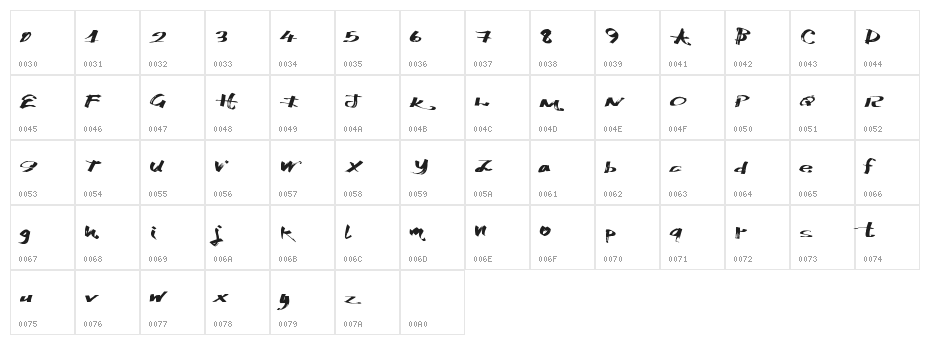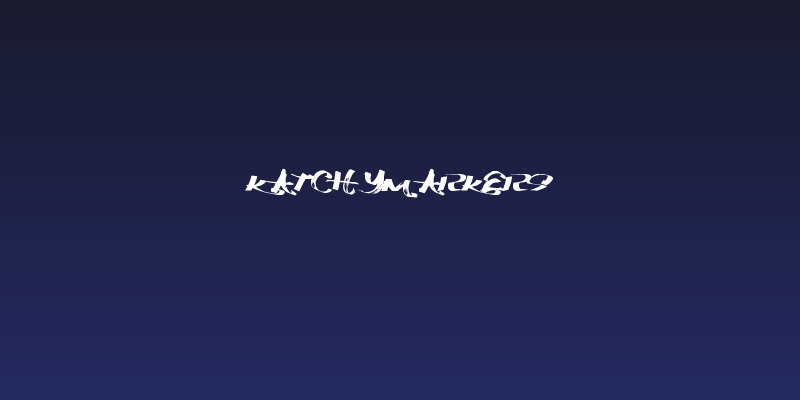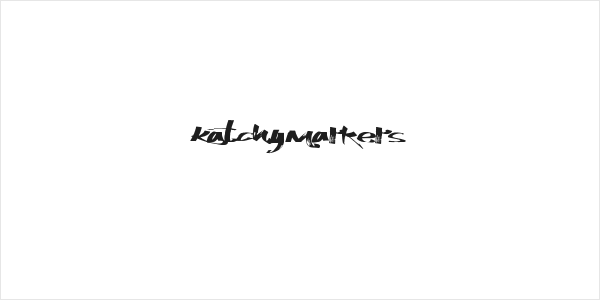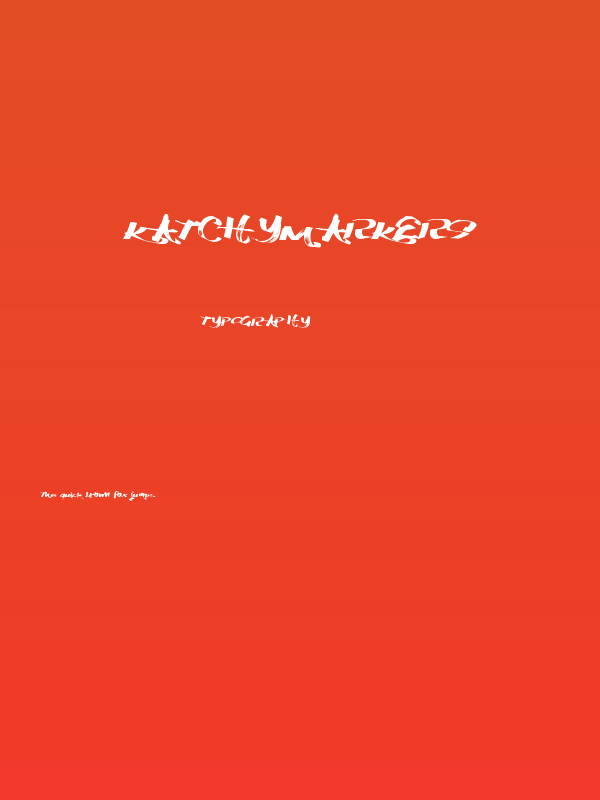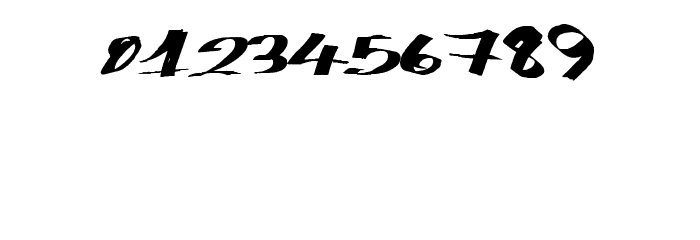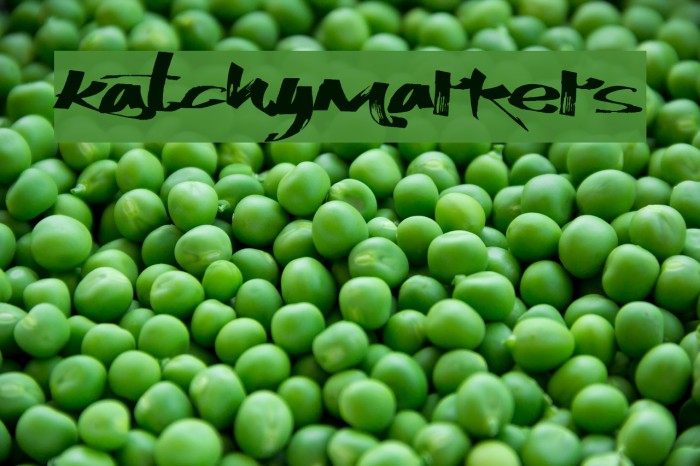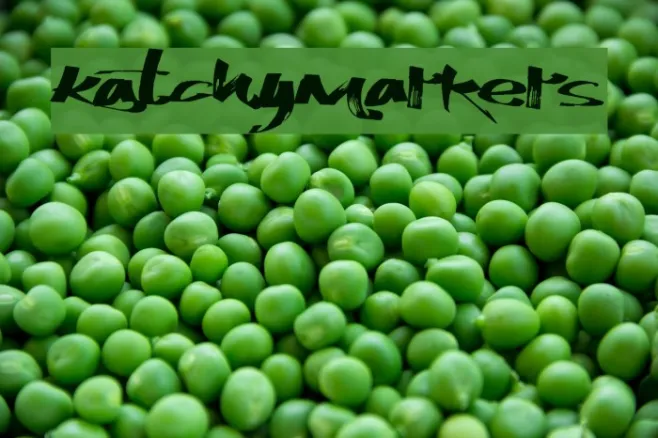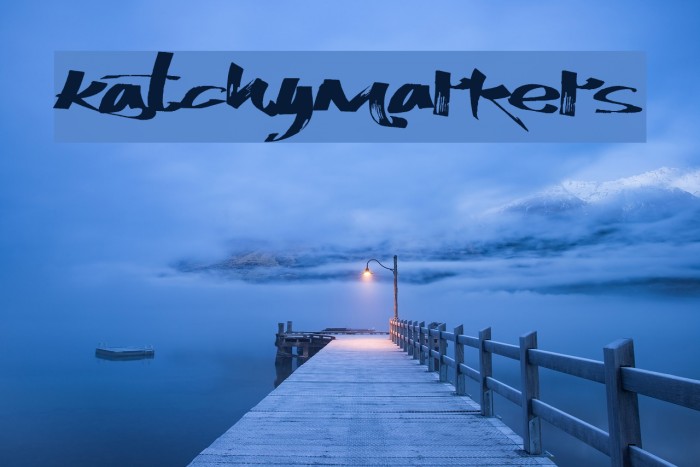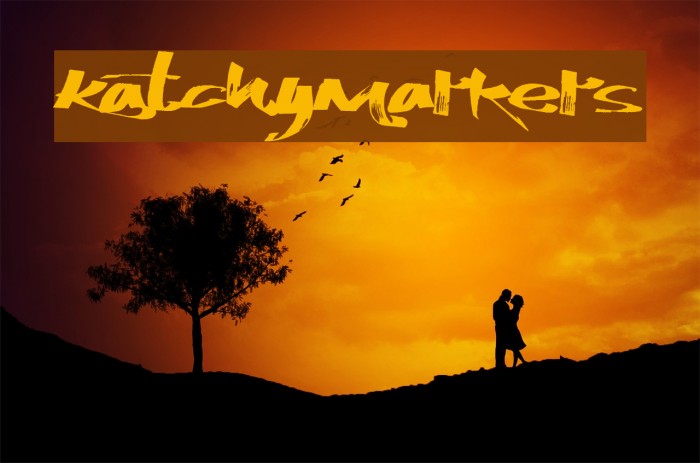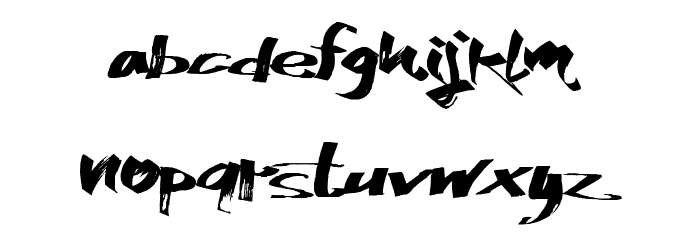
KatchyMarkers Font
KatchyMarkers Description
This font features a bold, expressive style with a brush-like appearance, characterized by its dynamic strokes and artistic flair. The letters have a hand-drawn quality, with varying thicknesses that create a sense of movement and energy. The uppercase letters are particularly striking, with dramatic flourishes and a slightly chaotic feel, while the lowercase letters maintain a more consistent flow. The numbers and special characters are equally bold, complementing the overall aesthetic. This font is perfect for projects that require a strong visual impact and a creative touch.